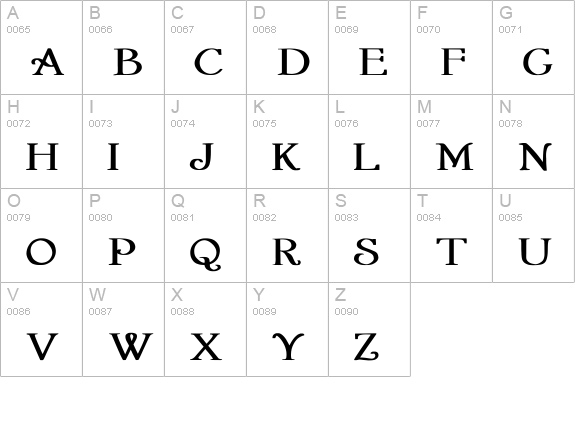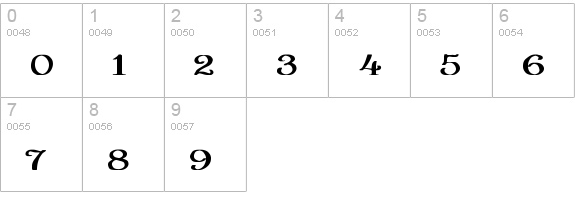
Garton Regular Wd Bold is the standard, neutral variant in the Garton typeface family \xE2\x80\x94 well suited to general body text, paragraphs, and standard typographic work.
Garton Regular Wd Bold font is a striking and modern typeface that exudes confidence and sophistication. Its bold weight commands attention while retaining a sense of elegance and readability. This versatile font is perfect for making a statement in headlines, logos, posters, and more. What makes Garton Regular Wd Bold font even better is that it is available for free download at FontsMarket.com. This means you can easily access and use this impressive font for your personal and commercial projects without any cost. Don't miss out on this opportunity to enhance your designs with the bold and impactful Garton Regular Wd Bold font.